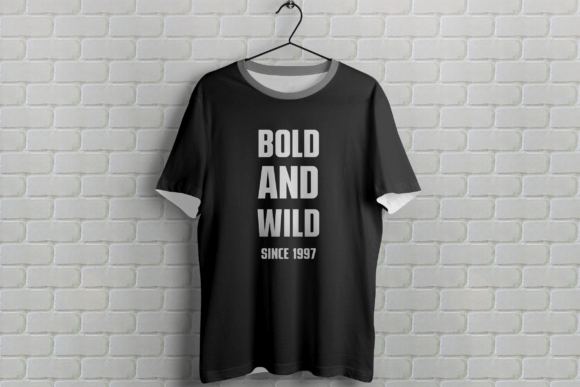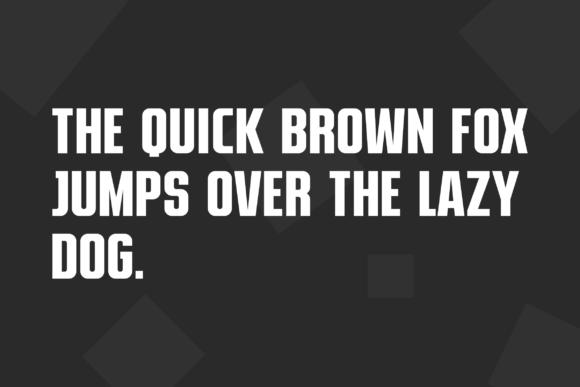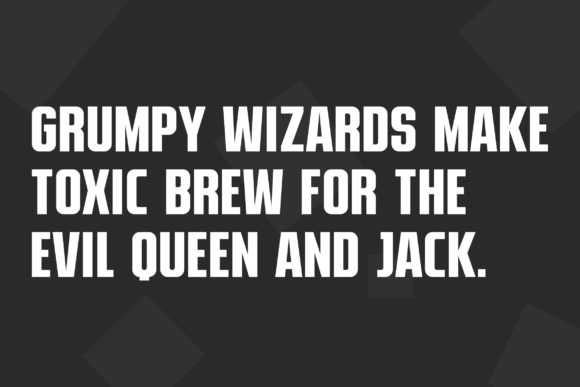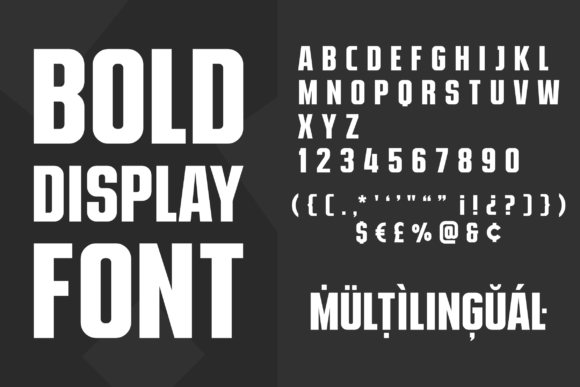
Introduction to Orthodox Font
Orthodox is a sleek and modern sans serif font.
It has a bold design that can be used to make your headlines stand out It is an all-caps font and comes with a multilanguage alphabet, supporting most European languages.
Key Features of Orthodox Font